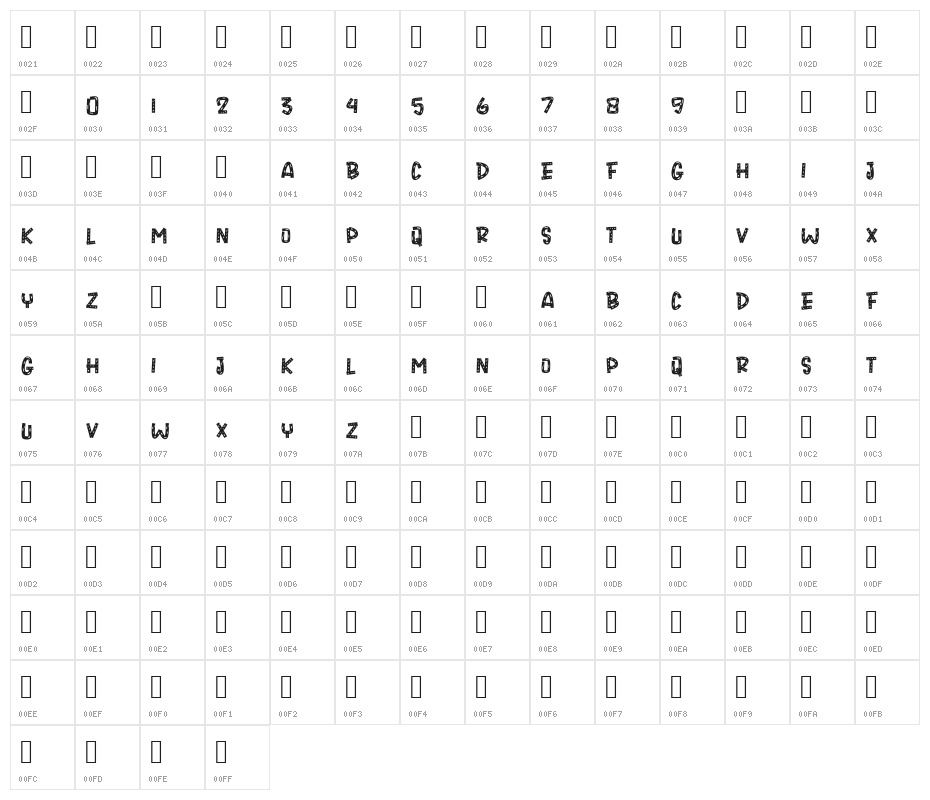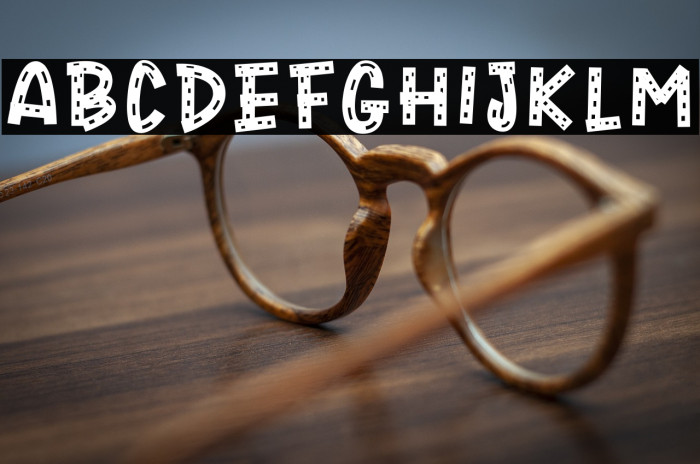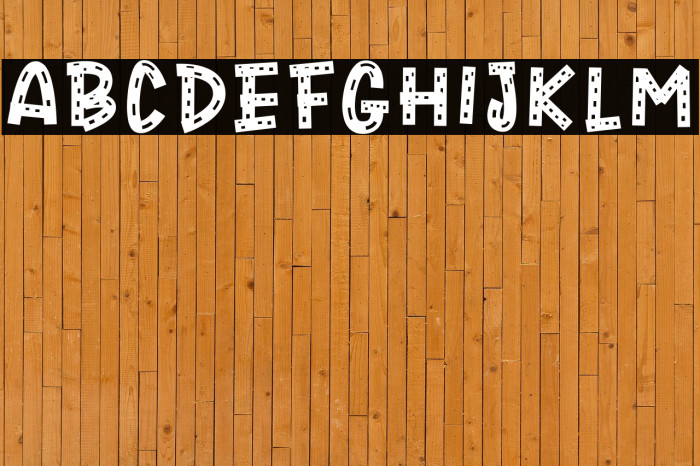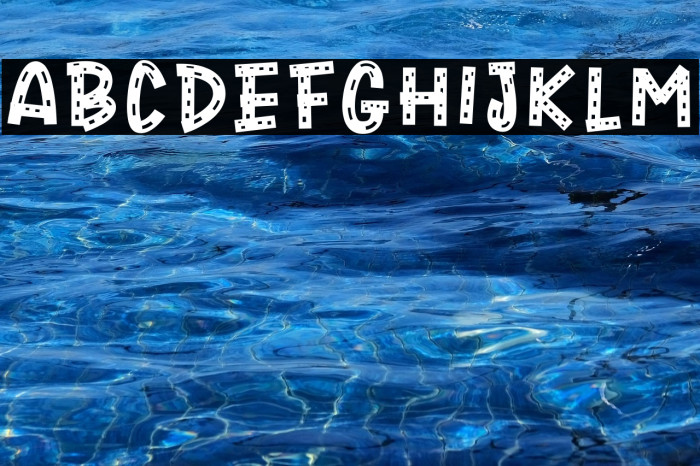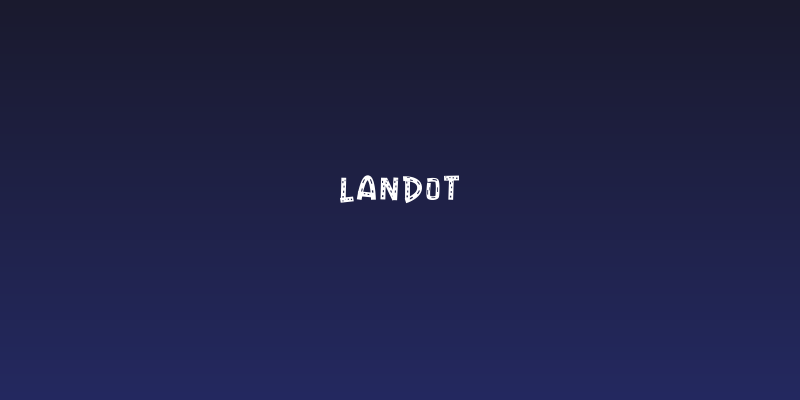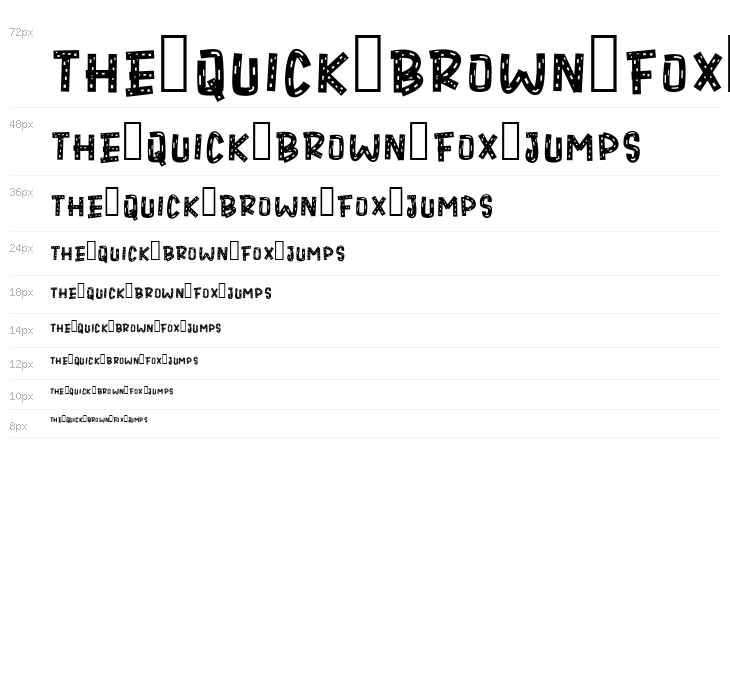
LANDOT Font
LANDOT Description
This playful and decorative font features bold, uppercase and lowercase letters with a unique dotted pattern inside each character. The design is reminiscent of marquee lights, giving it a lively and energetic feel. The characters have a slightly irregular shape, adding to the whimsical and fun aesthetic. The numbers and special characters follow the same style, making the font cohesive and versatile for various creative projects.
| Overall Style | Playful, Whimsical, Energetic |
| Proposed Projects | Ideal for children's book covers, party invitations, playful branding, and any project that requires a fun and lively typeface. |